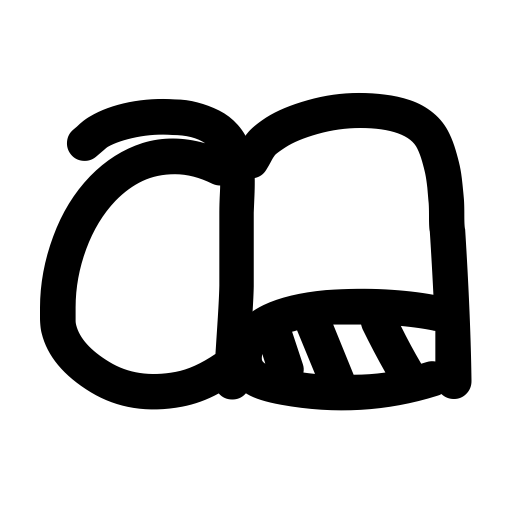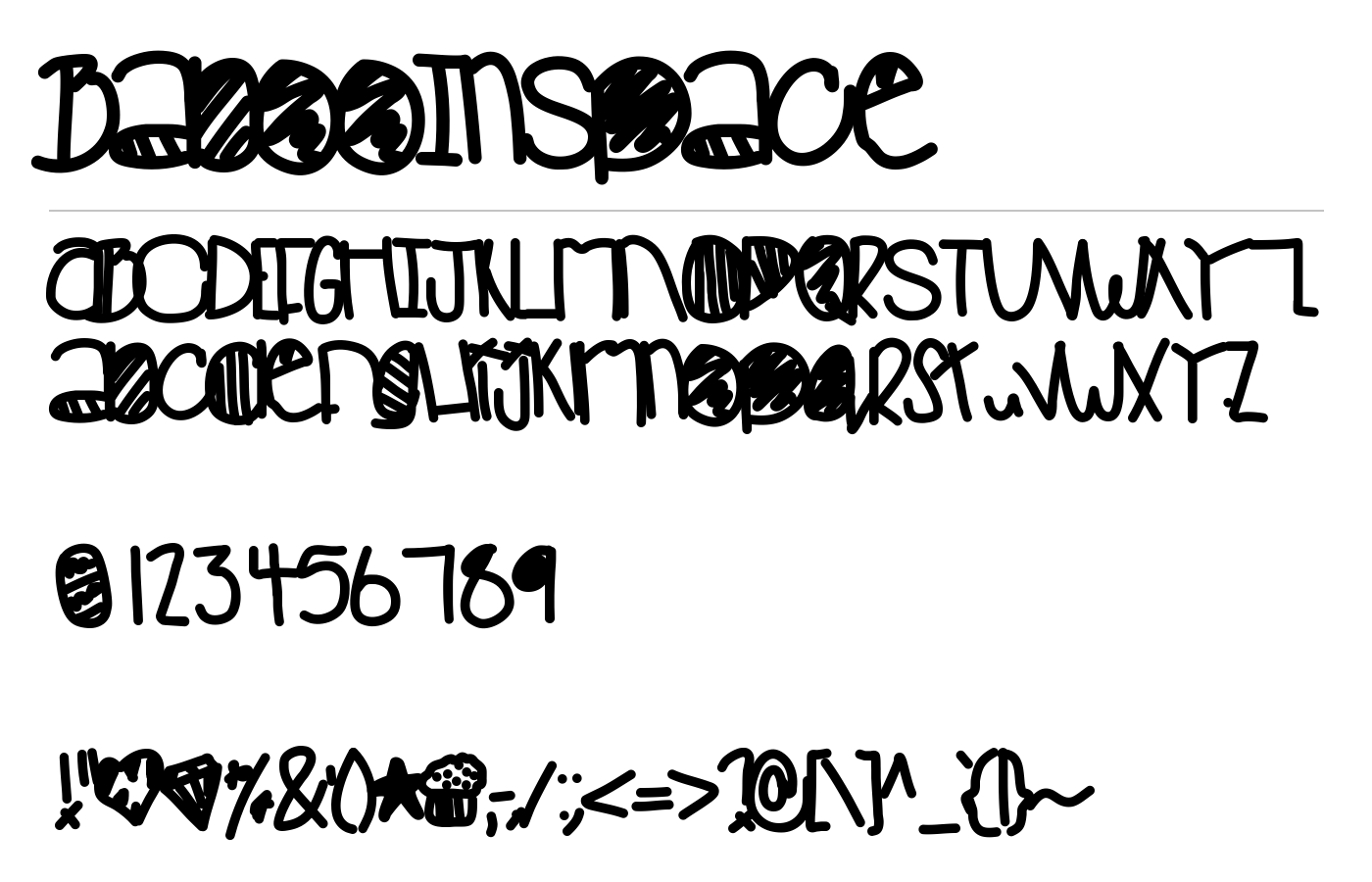
BabooInSpace is a playful, hand-drawn sans serif font with a casual, whimsical style highlighted by irregular strokes and quirky shapes. Its loose, lively characters create a fun, friendly vibe, making it ideal for creative projects, children’s materials, or informal branding that aims to stand out with a unique personality. This font works best in headlines, posters, or designs that benefit from a lighthearted and engaging feel.
BabooInSpace Font
About BabooInSpace Font